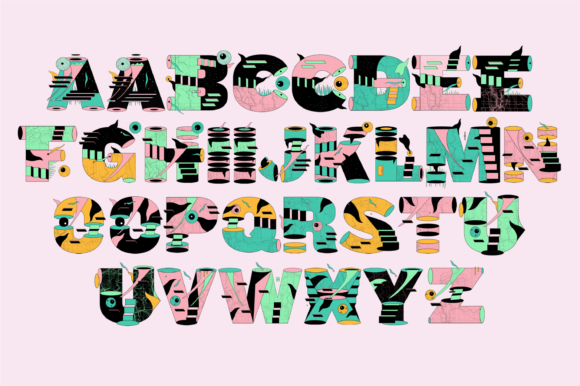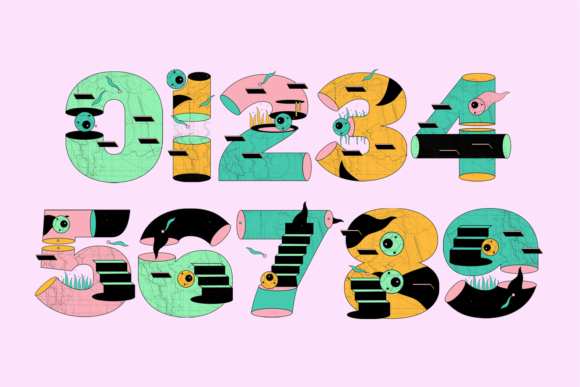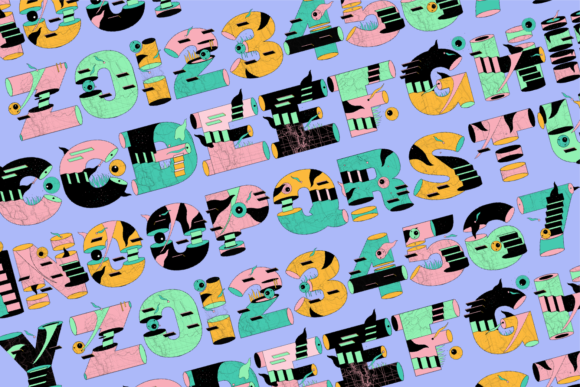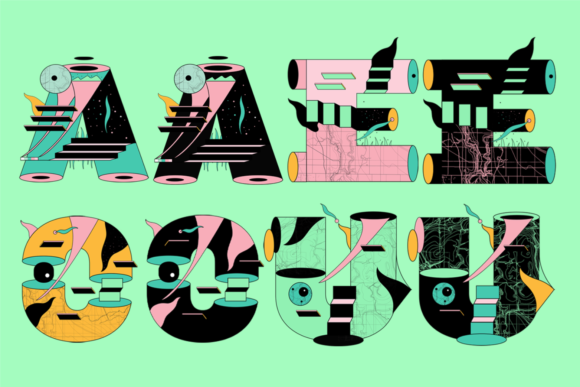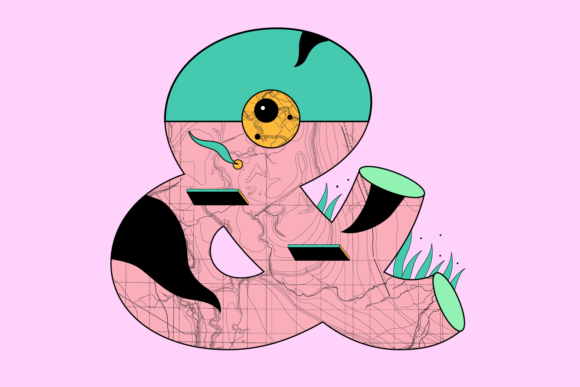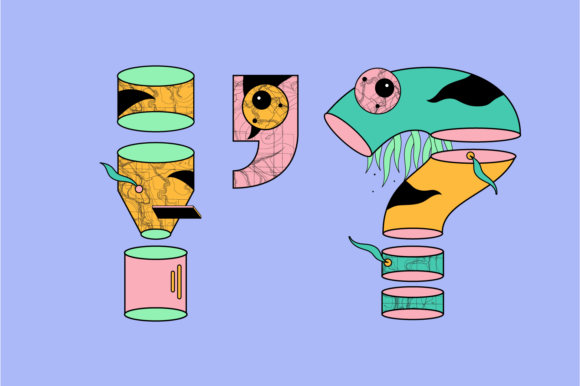
Crack Font: Elevate Your Designs with a Surreal Twist
Are you ready to add a dash of surrealism to your designs? Look no further than the Crack Font, a fun and experimental typeface that’s inspired by the infinite possibilities of surreal spaces. This vibrant font is packed with color motifs that will instantly turn any design idea into a true standout. In this article, we’ll dive deeper into the world of Crack Font, exploring its unique features, compatibility, and how to make the most of this exciting design tool.
What is Crack Font?
Crack Font is a color font, specifically designed as an Opentype-SVG (OTF-SVG) file. This innovative format allows for the creation of colorful, dynamic text that can be edited and manipulated in various design software. The font’s unique aesthetic is characterized by its bold, playful, and dreamlike quality, making it perfect for designers and crafters looking to add a touch of whimsy to their work.
Key Features of Crack Font
- Colorful and Dynamic: Crack Font is a true showstopper, with a wide range of colors and gradients that can be easily edited and customized.
- Surreal Inspiration: The font’s design is inspired by the infinite possibilities of surreal spaces, making it perfect for designers who want to push the boundaries of creativity.
- Experimental Spirit: Crack Font is all about experimentation and exploration, encouraging designers to try new things and take risks.
Tips and Tricks for Using Crack Font
To get the most out of Crack Font, here are a few tips and tricks to keep in mind:
- Experiment with Colors: One of the most exciting features of Crack Font is its color capabilities. Don’t be afraid to try out different color combinations and gradients to create a unique look.
- Play with Textures: The font’s surreal inspiration lends itself perfectly to texture and pattern experimentation. Try combining Crack Font with different textures and patterns to add depth and interest.
- Mix and Match: Crack Font is all about experimentation, so don’t be afraid to mix and match different design elements to create something truly unique.
Who is Crack Font for?
Crack Font is perfect for designers, crafters, and DIY enthusiasts who want to add a touch of surrealism to their work. Whether you’re creating:
- Branding materials
- Digital art
- Craft projects
Crack Font is an excellent choice for anyone looking to push the boundaries of creativity and add a dash of whimsy to their designs.
Crack Font is an exciting and innovative design tool that’s sure to inspire designers and crafters alike. With its unique surreal aesthetic, colorful and dynamic text capabilities, and compatibility with a range of design software, this font is perfect for anyone looking to elevate their designs and take their creativity to the next level. So why not give Crack Font a try and see where your imagination takes you?